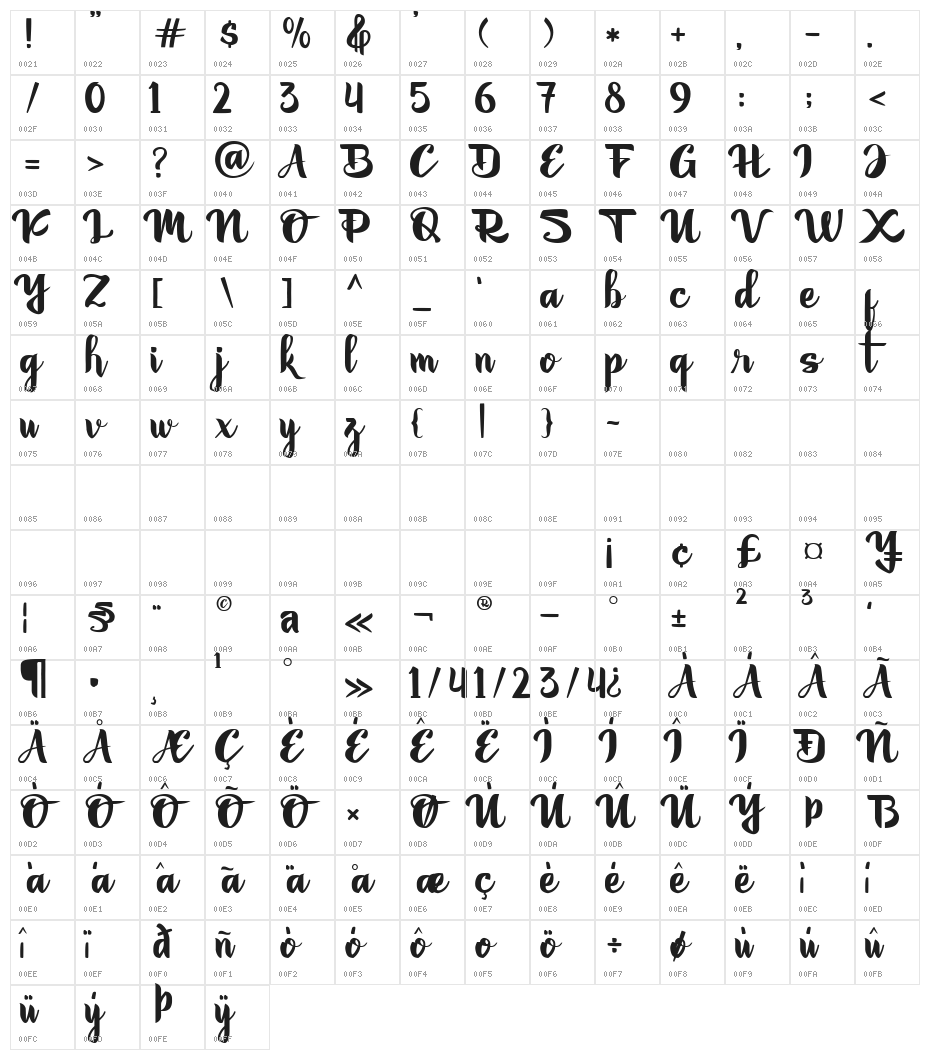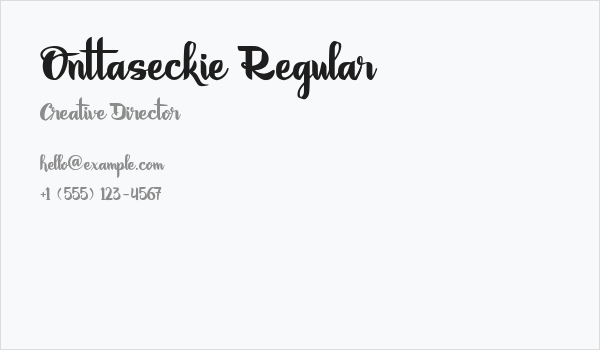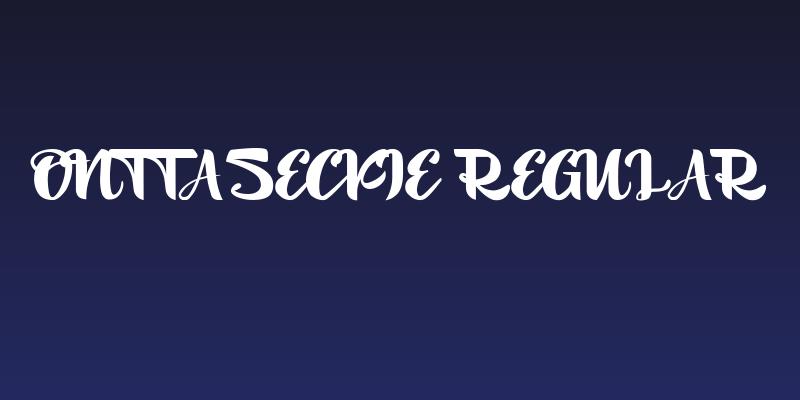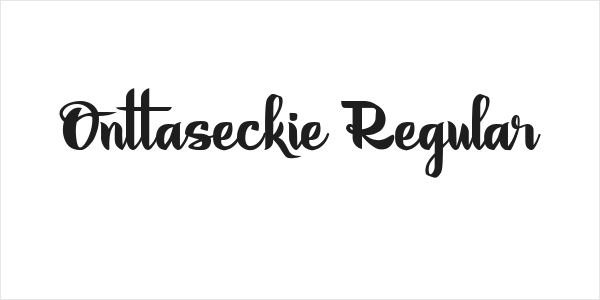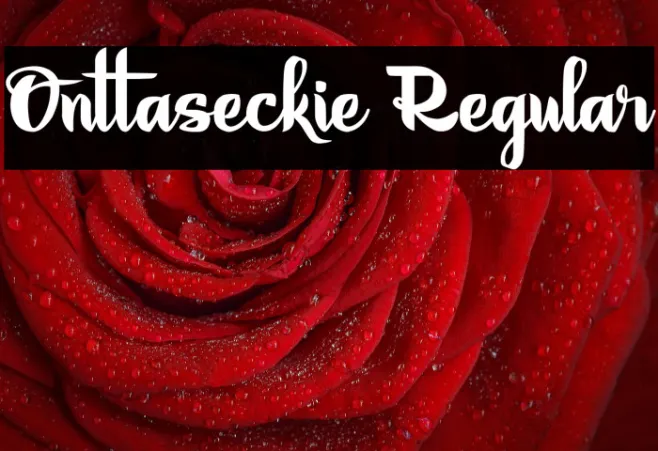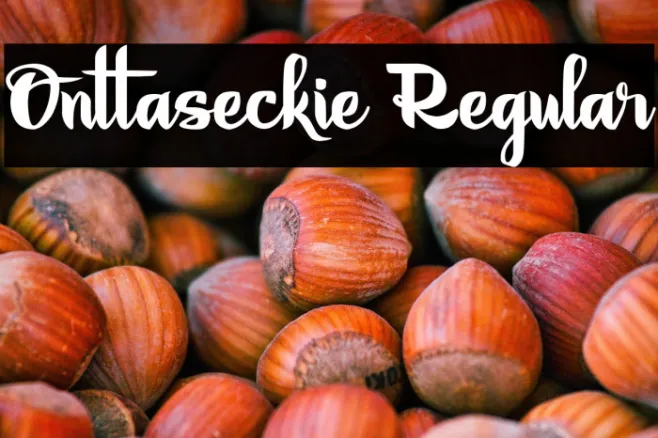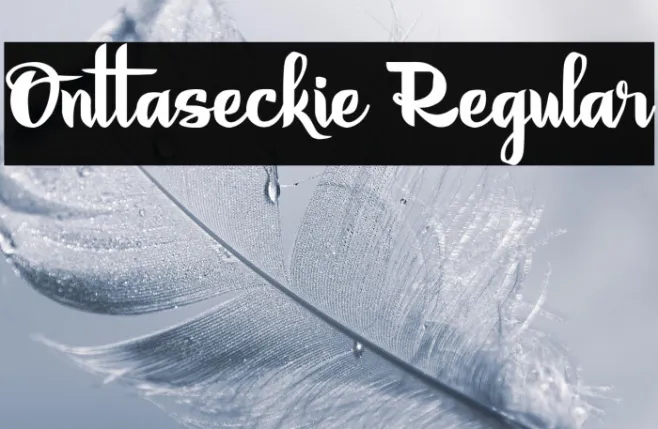
Onttaseckie Regular Font
Onttaseckie Regular Description
This font features a bold and expressive script style with a modern flair. The uppercase letters are characterized by their flowing, interconnected strokes, giving a sense of movement and elegance. The lowercase letters maintain this fluidity, with some letters featuring distinctive loops and curls that add to the overall charm. The numerals are bold and consistent with the script style, ensuring readability while maintaining the font's unique aesthetic. Special characters are well-integrated, offering a cohesive look across all symbols. This font is ideal for projects that require a touch of sophistication and creativity.
| Proposed Projects | Ideal for wedding invitations, branding, logos, and creative design projects that require a sophisticated touch. |